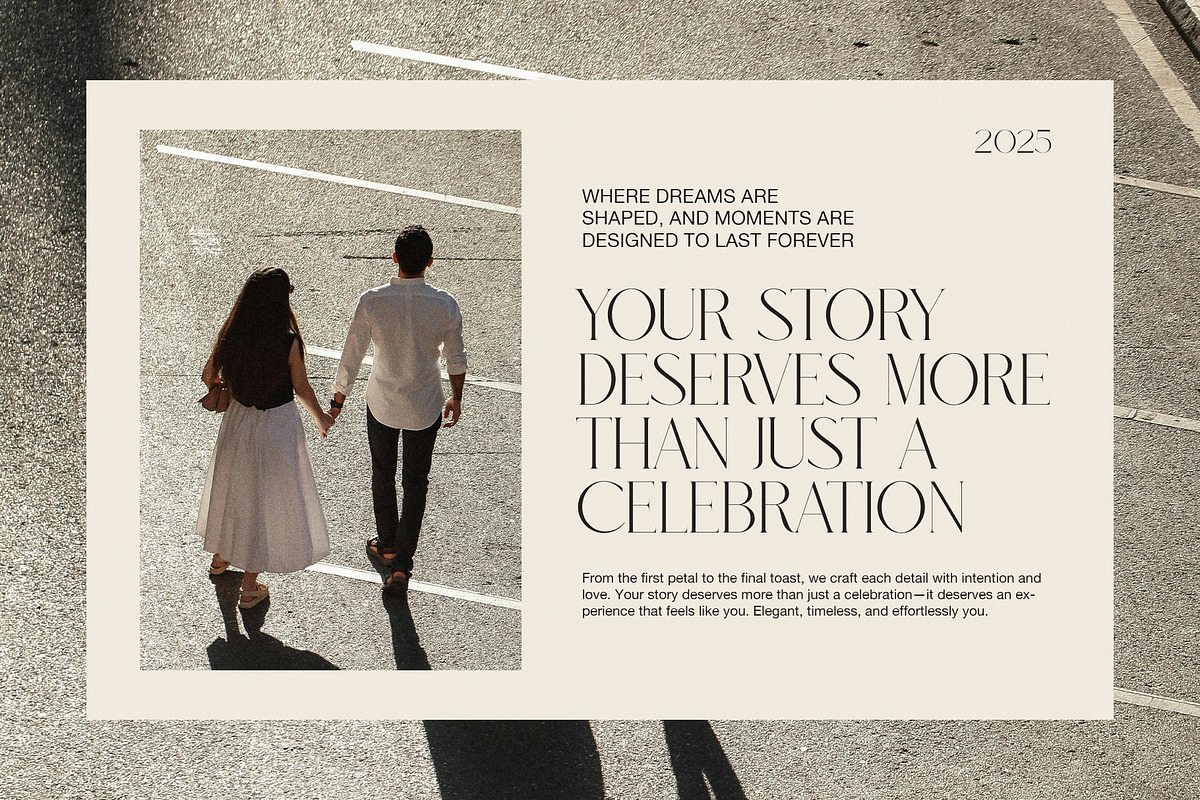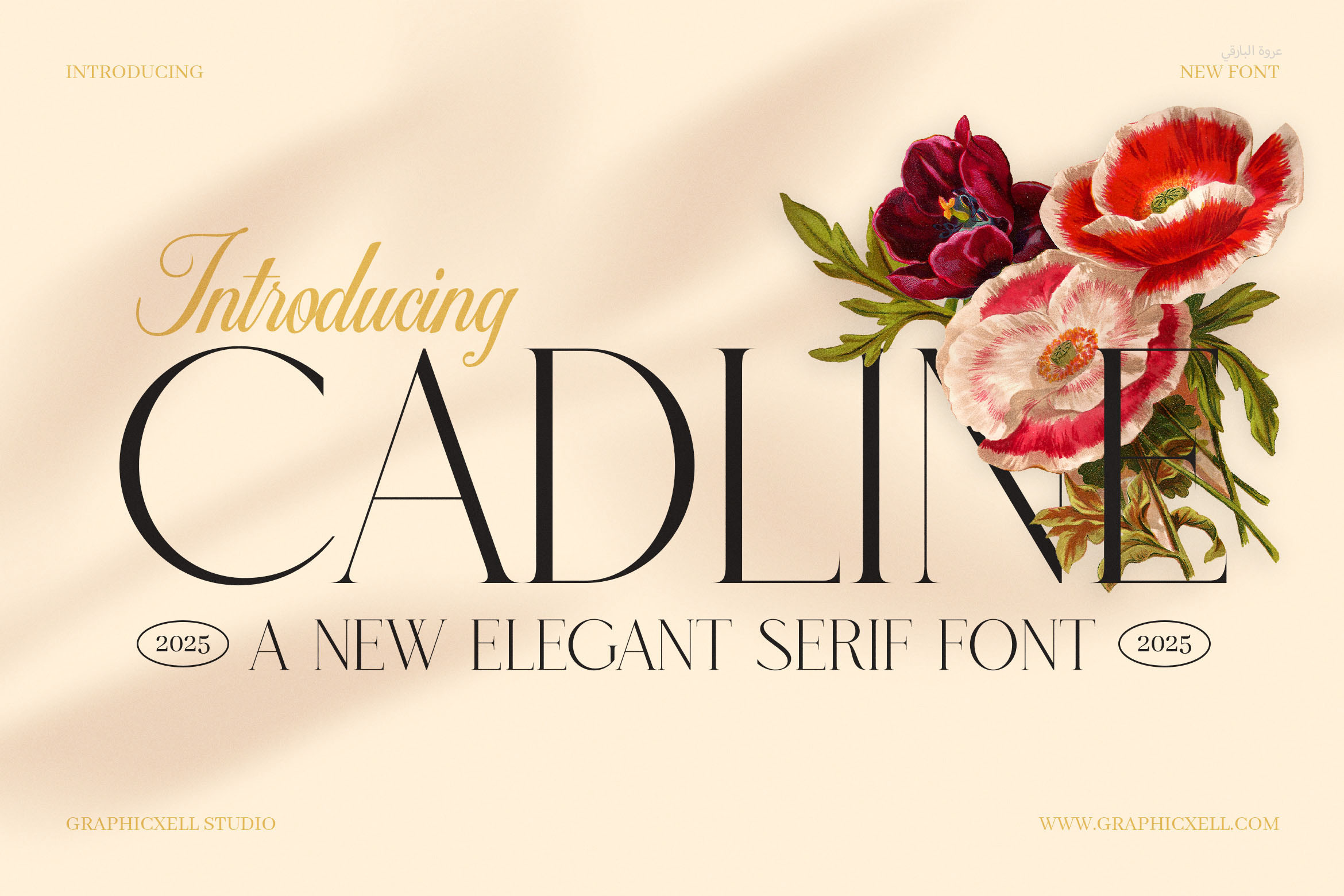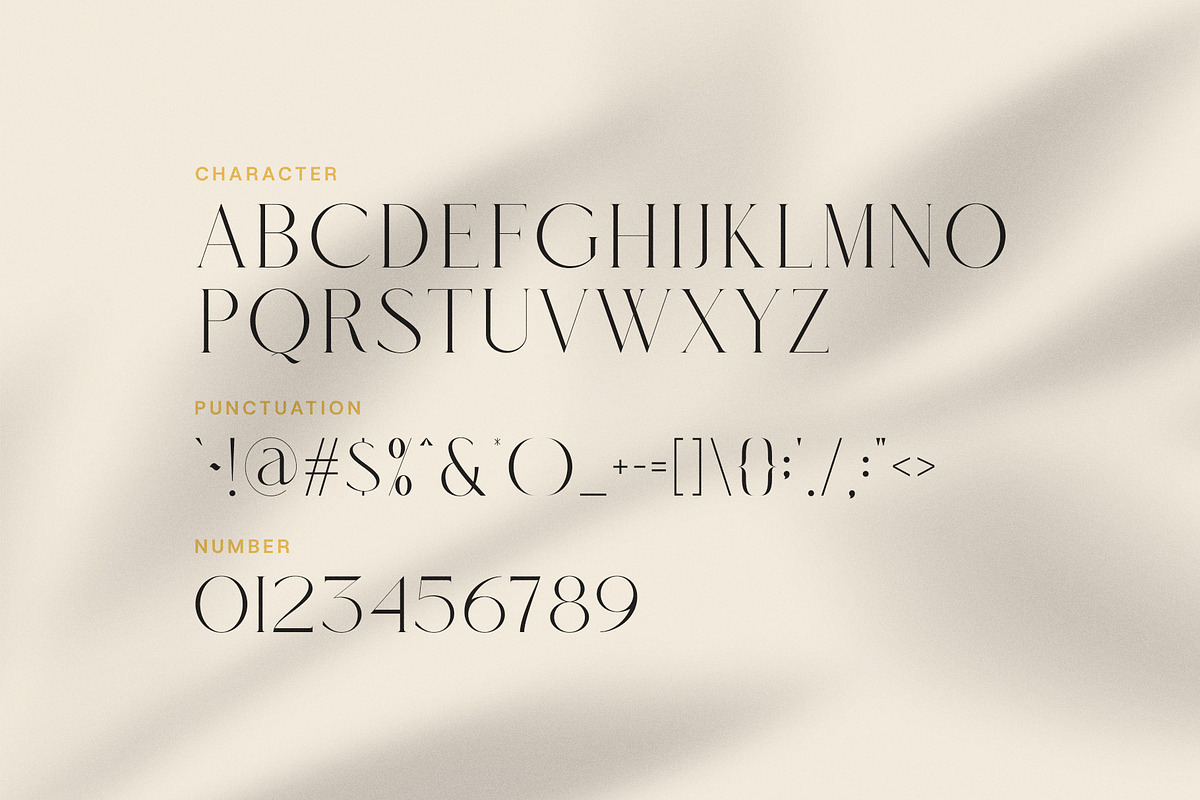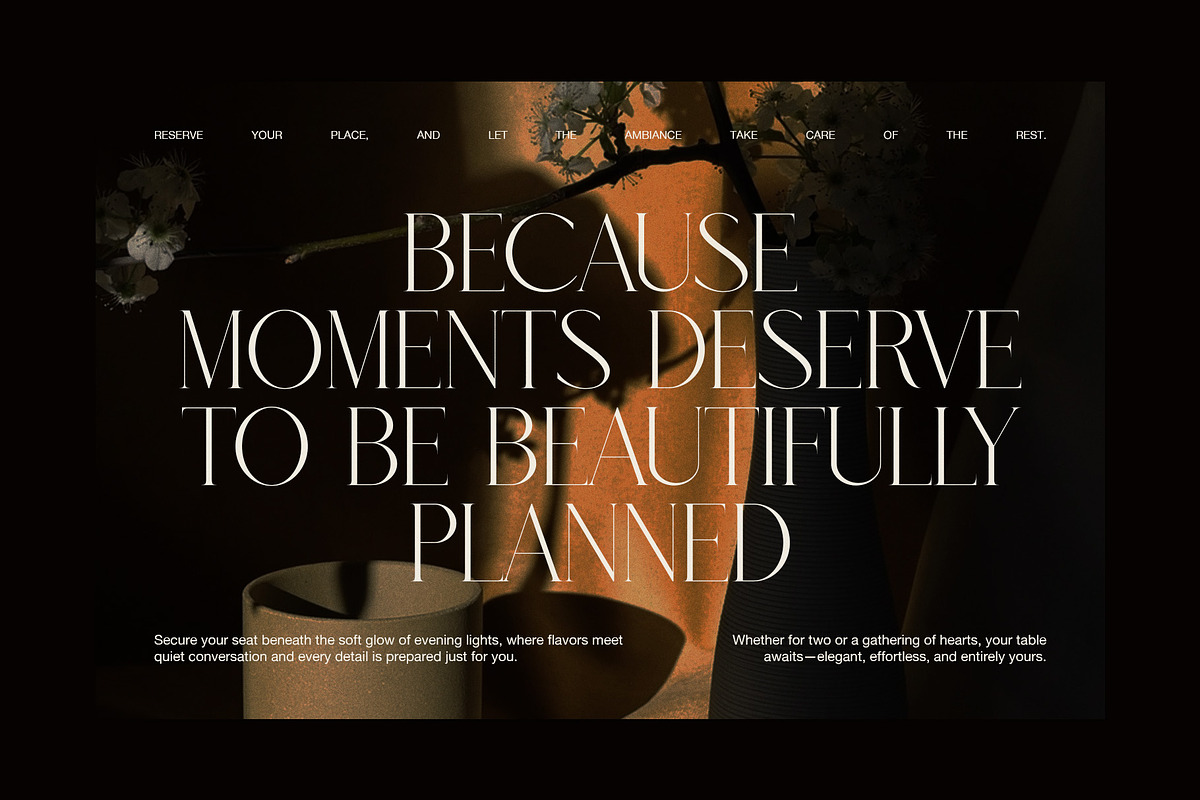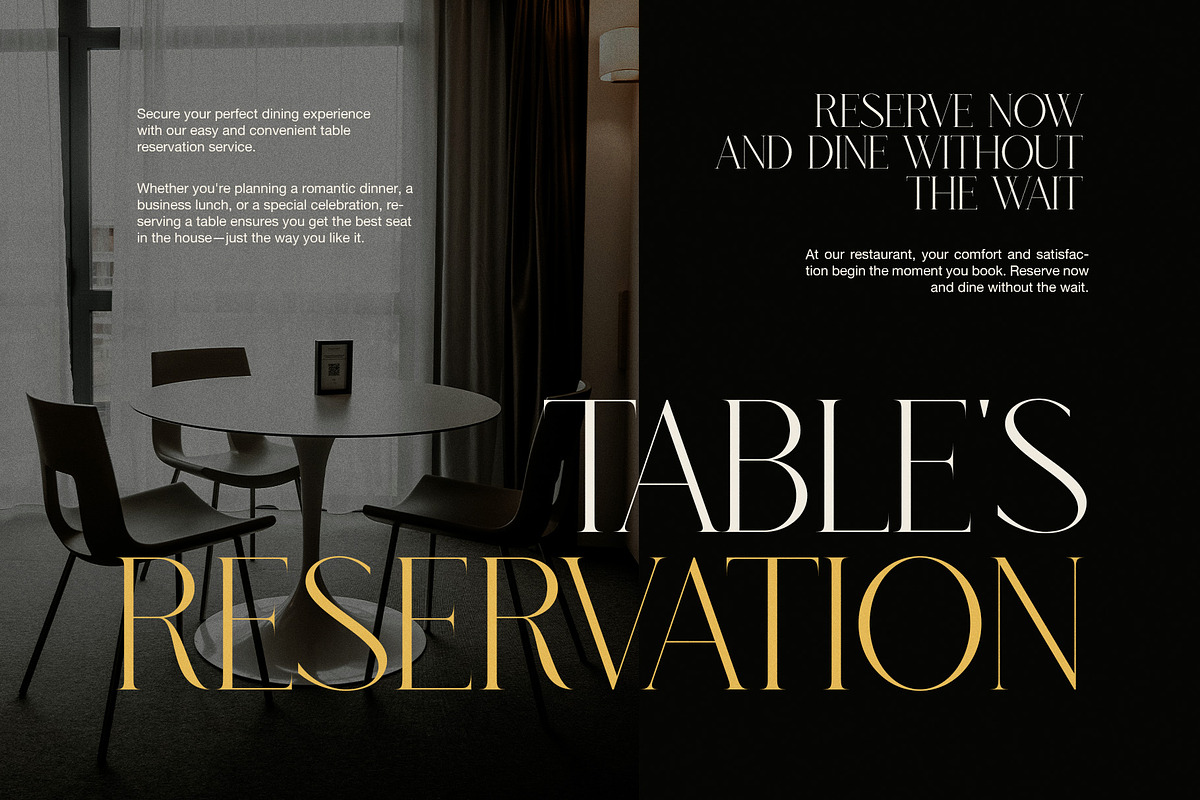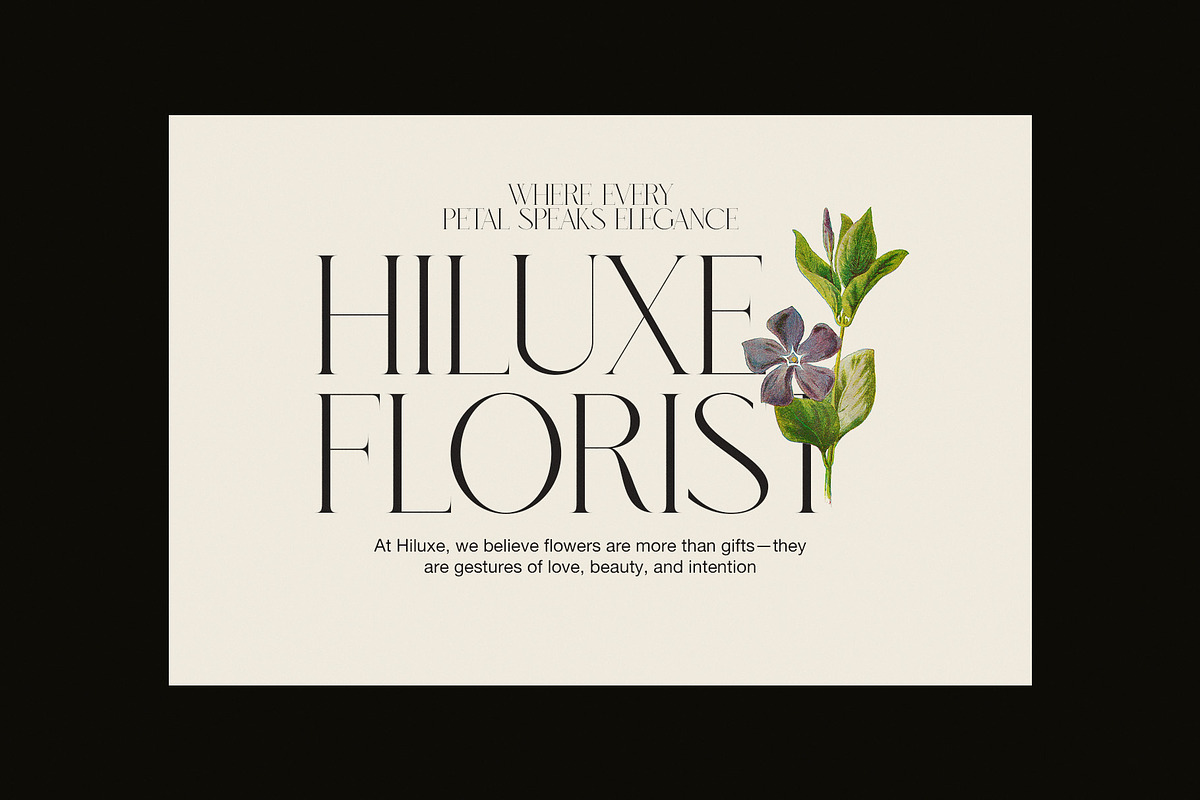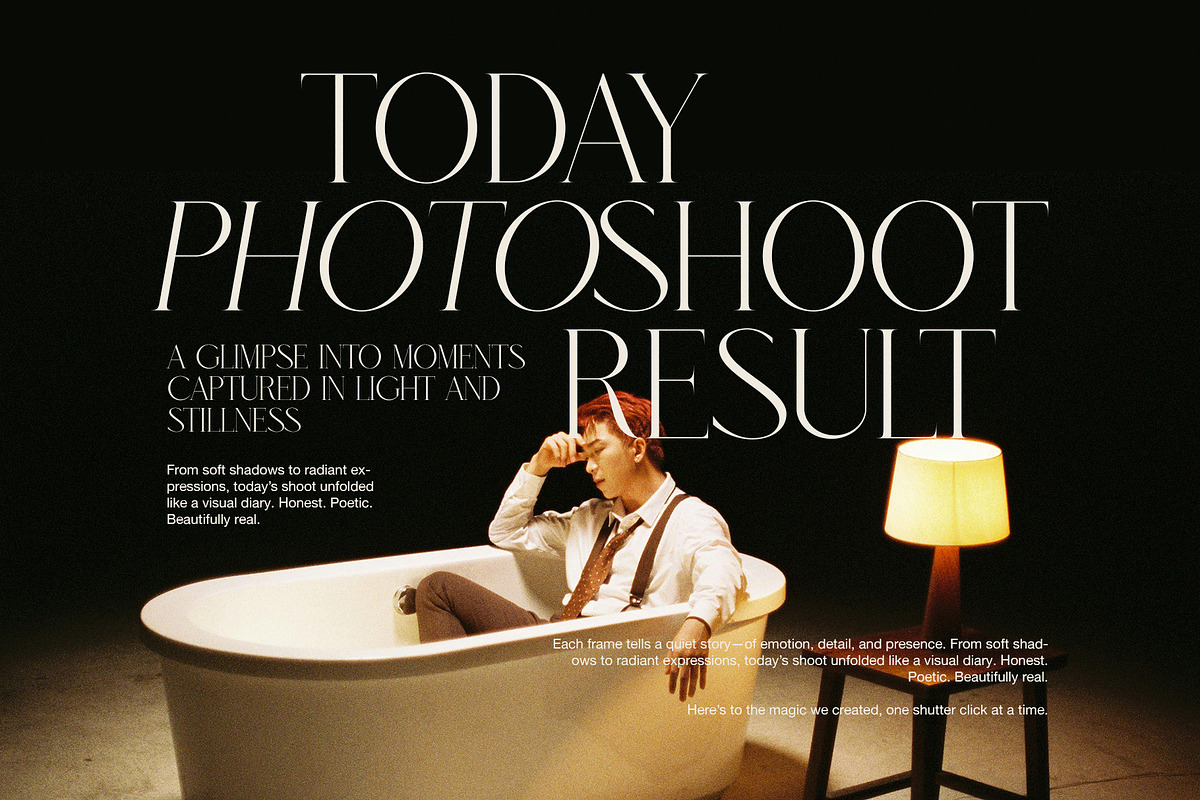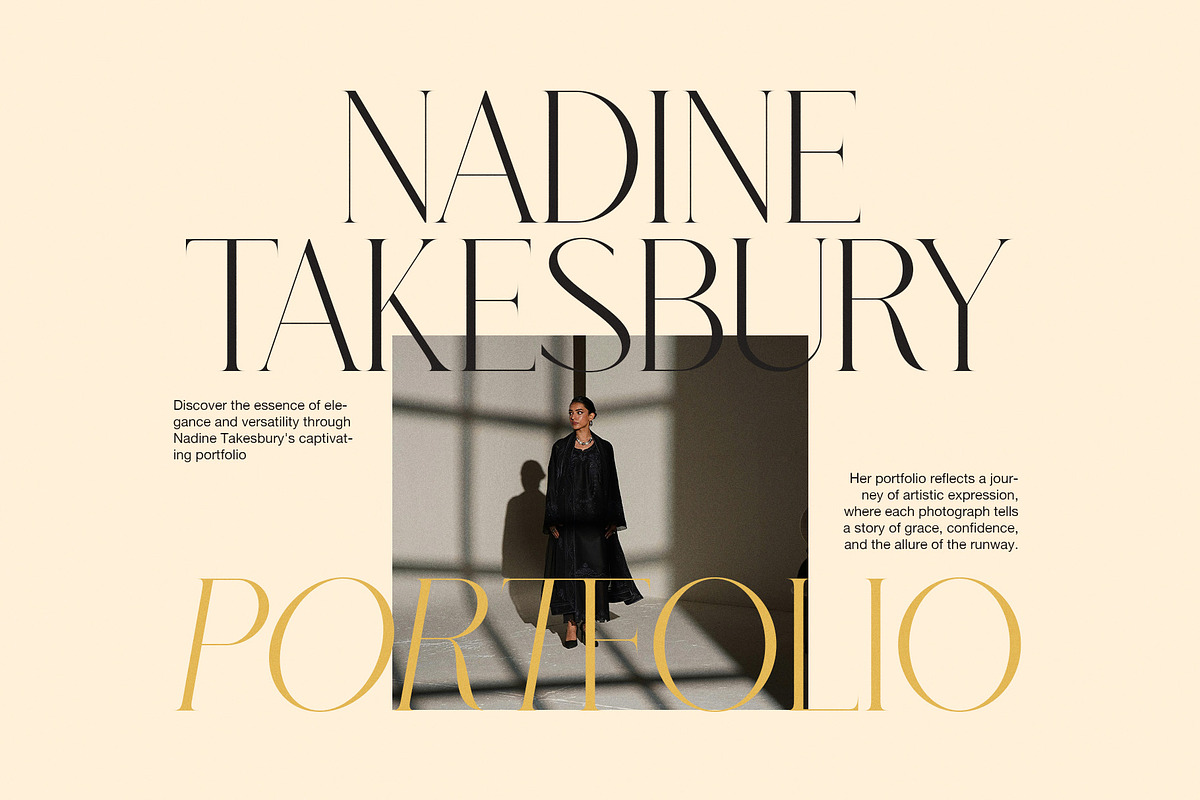
Cadline Serif font
Cadline Serif font is a clean, bold, and stylish serif made for strong visual impact. With sharp lines and balanced letter shapes, this font brings a smart and elegant feel to your designs. It blends a classic serif style with a modern look, making it great for many creative uses.
Use Cadline Serif when you want your words to stand out. It is ideal for:
Headlines and titles that need to look bold and sharp
Logos and brand names with a high-end style
Packaging for luxury items or modern products
Magazine and book covers that need a strong presence
Posters or signs that must be clear and eye-catching
The font has a mix of thick and thin strokes, which adds style without making it hard to read. Its strong serifs and neat curves give it a bold voice, while keeping the text clean and easy to follow. It works well on its own or paired with a simple sans serif for balance.
Cadline Serif also offers full support for many languages, making it great for global use. Whether you’re designing for a fashion brand, a high-end product, or an art-focused layout, this font brings class and structure to every letter.
It was built with care, so the spacing and flow feel natural. You don’t need to spend time adjusting it—it works right away. It’s also ready for both print and digital designs.
In short, Cadline Serif is a smart choice for anyone who needs a sharp, modern serif font. It gives your work a premium feel, without being too complex. Designers, brands, and creatives will find it easy to use and easy to love.